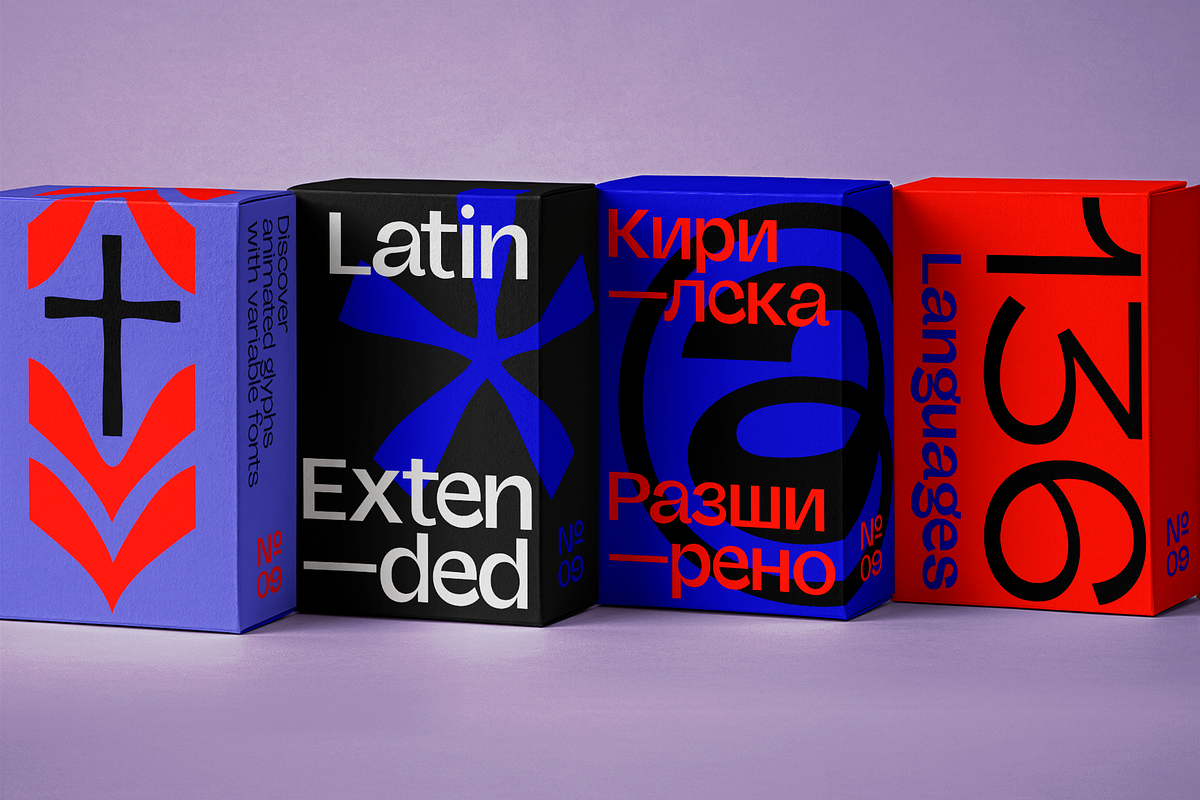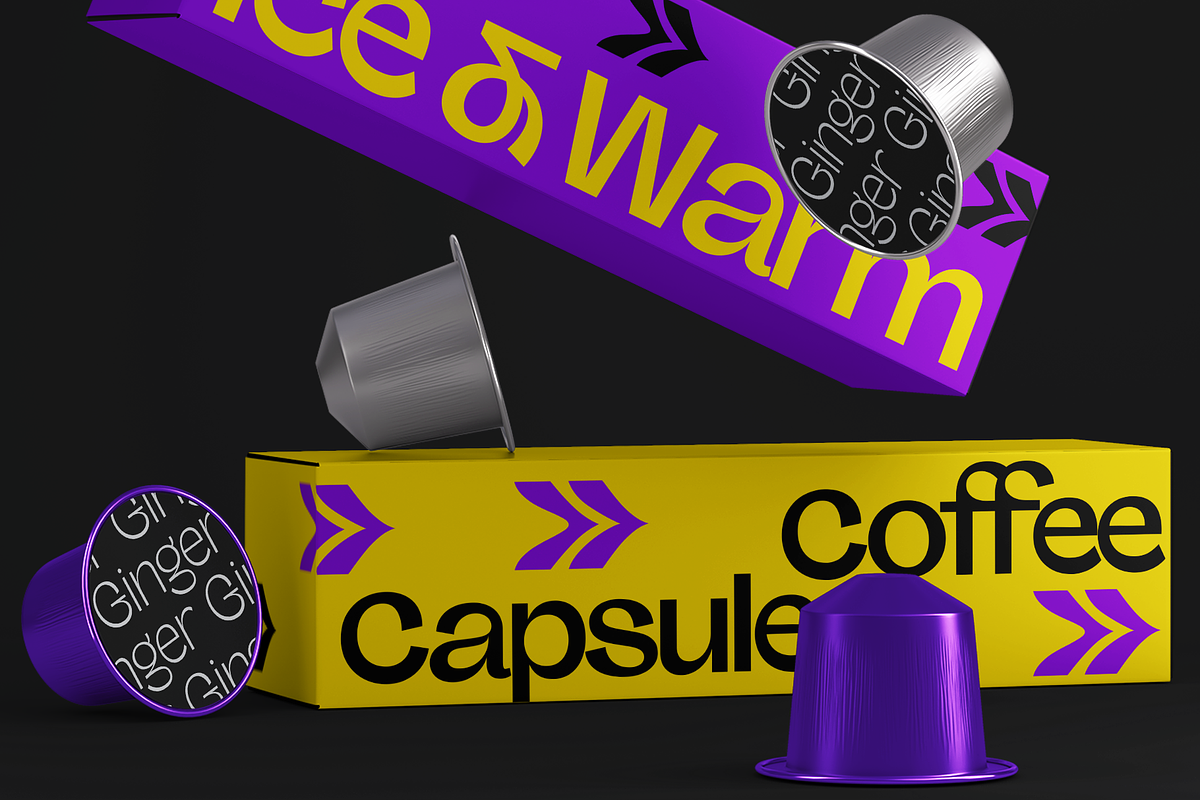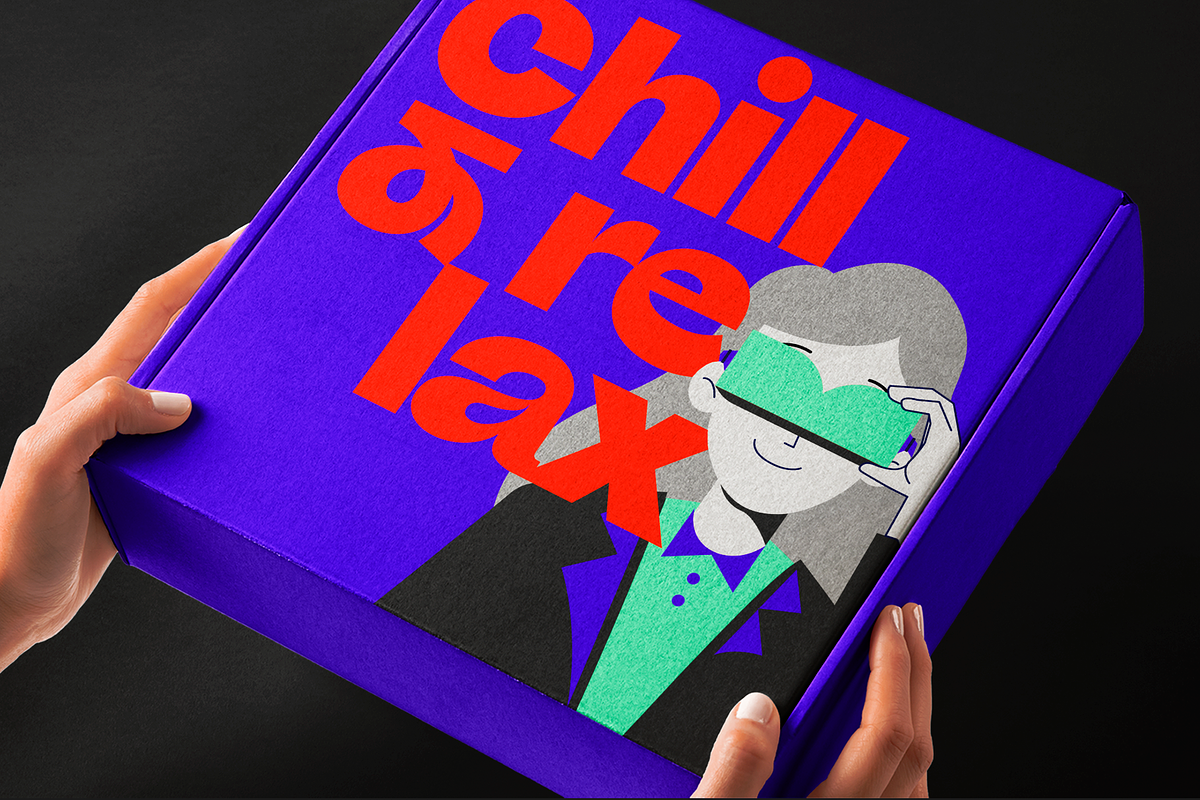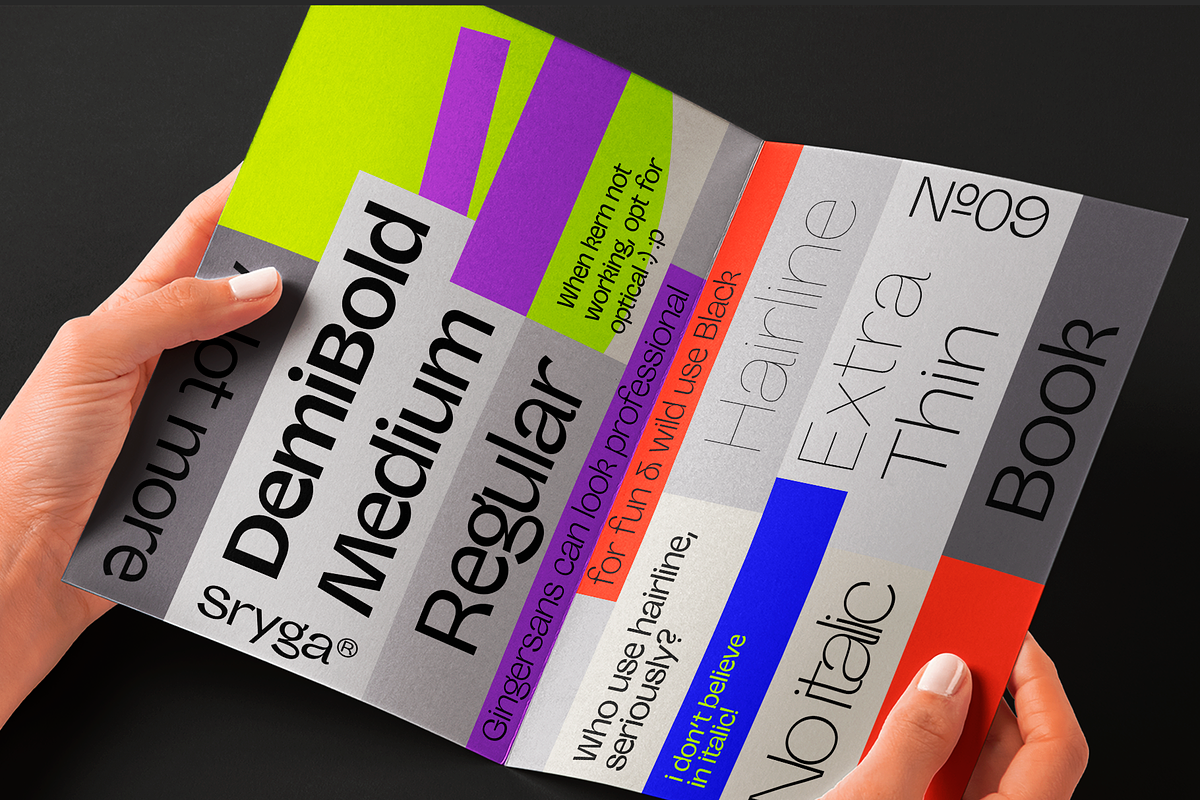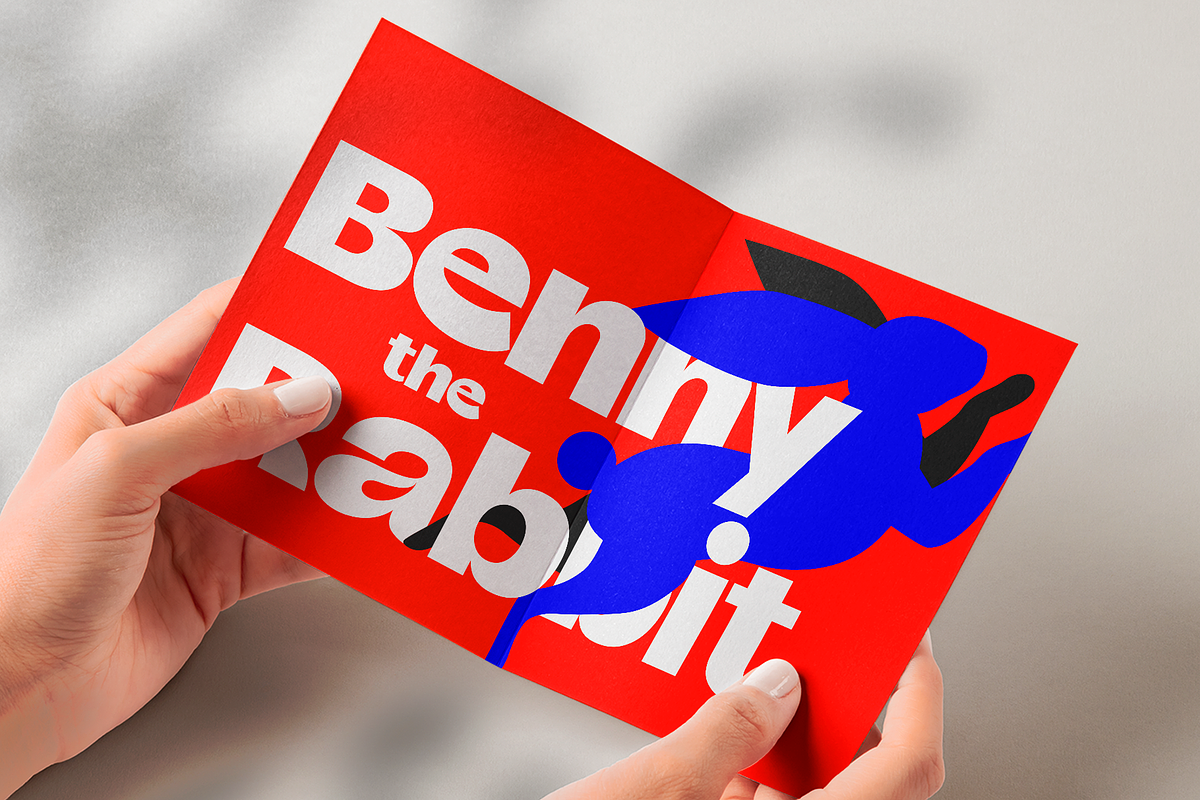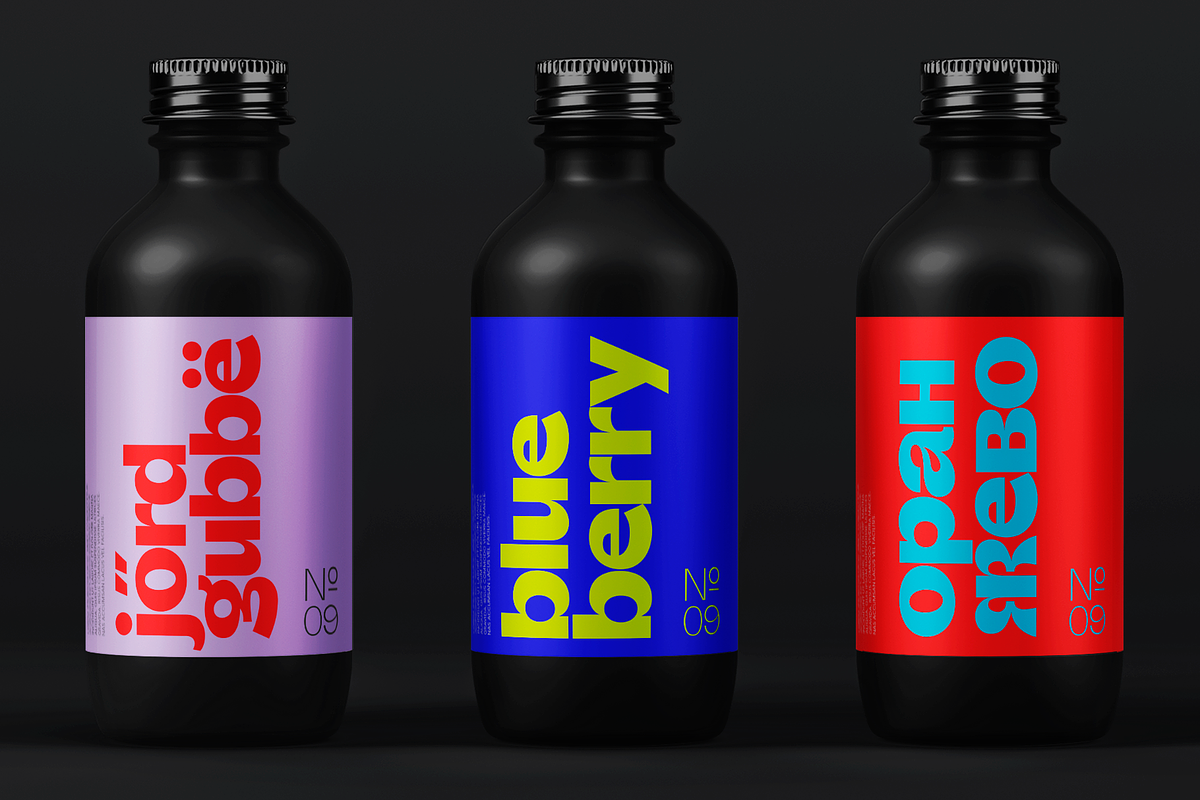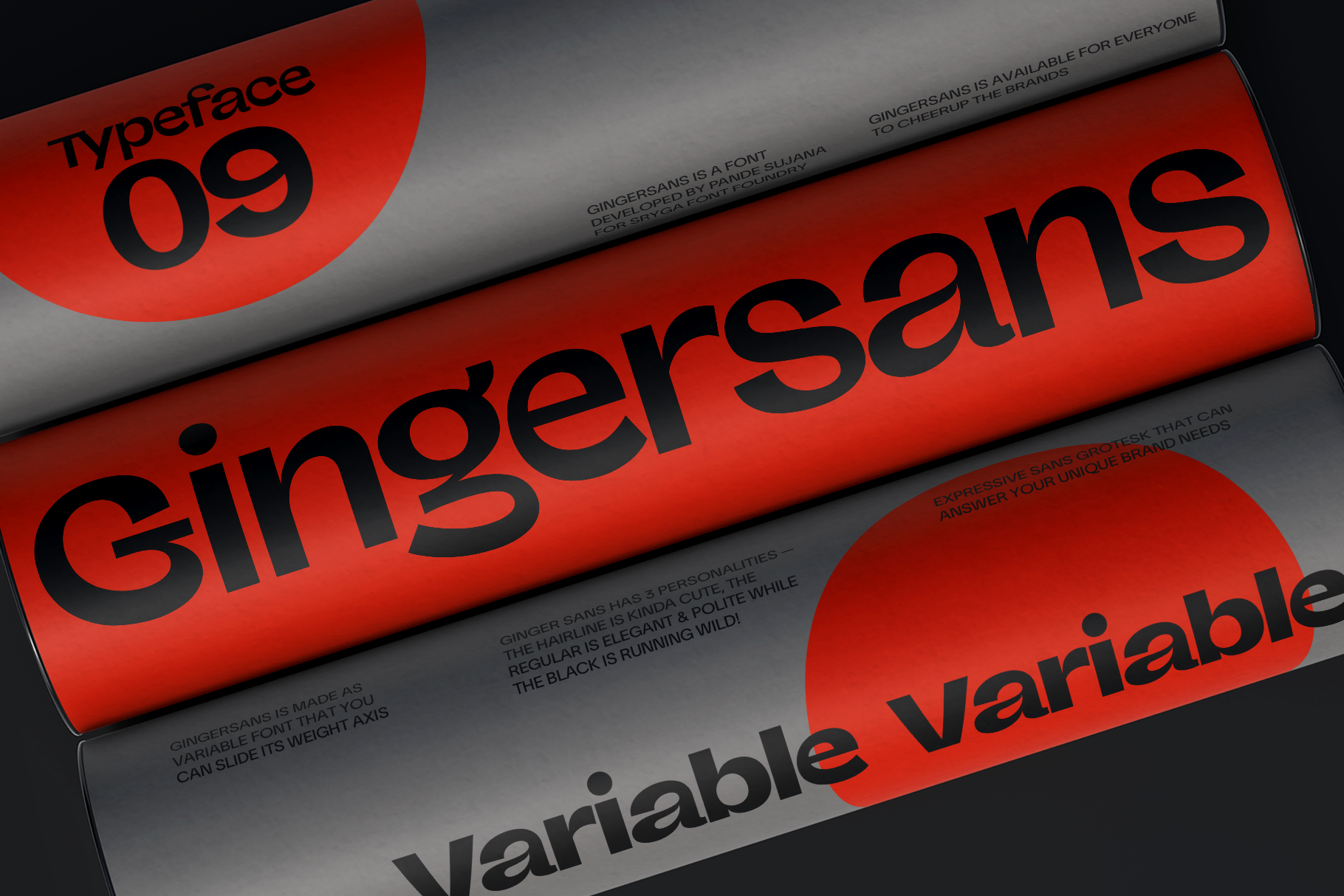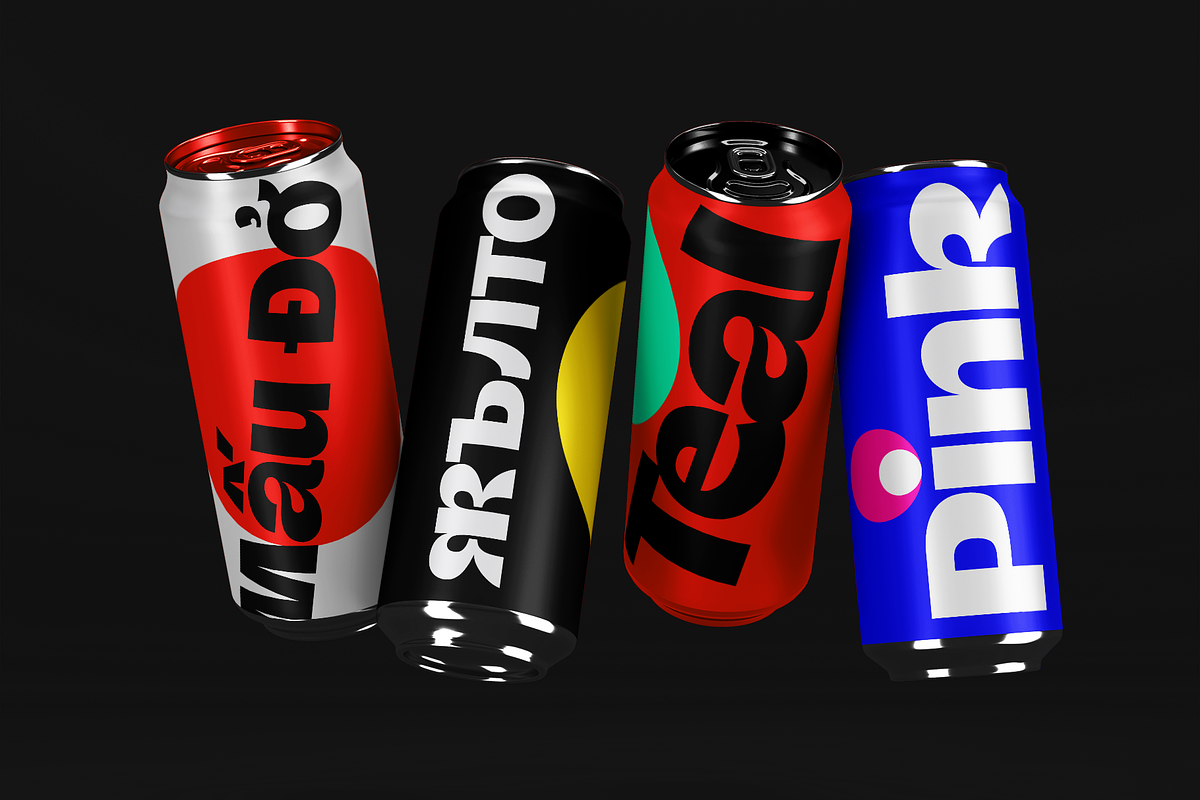
Gingersans — Funtastic Sans Font
Introducing Gingersans, the typeface that's basically a font party in 12 different weights! Imagine a font that's not just a font but a personality chameleon, smoothly transitioning from easygoing and polite in the regular weights to downright wild and fun in the bolds. It's like having multiple distinct characters living in one seamless universe. The design? Oh, it's calligraphy meets sans serif – the rebel child of fonts. The curves are having a party of their own; they go wild on the Black, get too cute on the Hairline, and throw in some artsy politeness on the Regulars. It's a typographic adventure that keeps the vibe consistent, whether you're going Hairline, Regular or Black. And here's the best part – Gingersans is not just a font; it's a variable font too, with a weight axis to cater to your every design mood swing. Get ready to fall in love with the font that's as versatile as your ever-changing design whims! 🎉✨ #Gingersans #TypefaceMagic